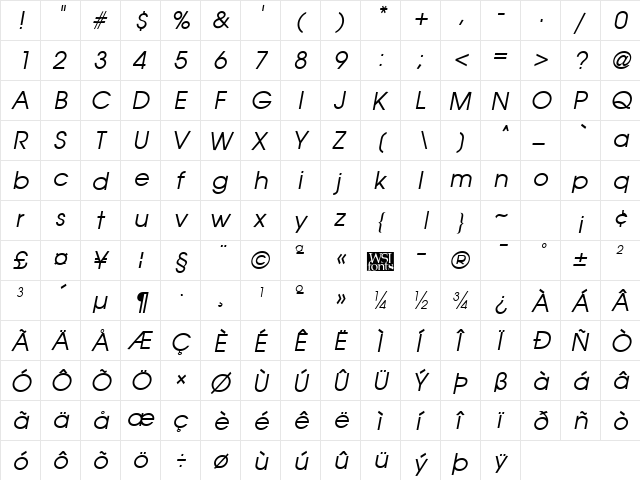
Avian Italic
Design Context for Avian Typeface
Avian takes a measured approach to typography — its balanced proportions and neutral character make it a reliable workhorse for both digital and print work. Its italic angle brings a sense of urgency and motion to the letterforms.
Pro Tip: Use Avian for emphasis, pull quotes, and subheadings where its slanted energy can add rhythm to the layout.